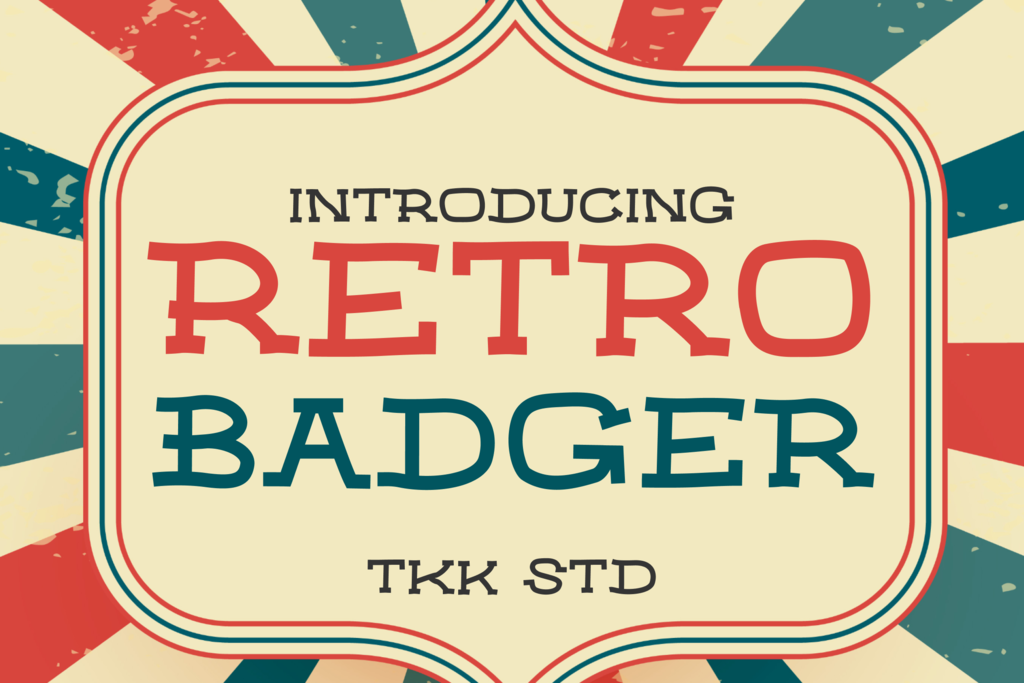
RETRO BADGER western font has a serif shape with hand-drawn feel, rough and vintage feel will make RETRO BADGER emphasize the old rebel passion, and adventure rage on every word you put on the screen. Suit perfectly for Online Games, poster, movie title, fast food menu, magazine, youtube covers, youtube thumbnails, social media page covers and so on...